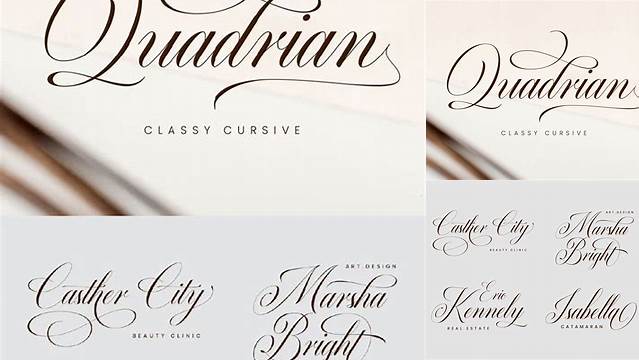
Elegant Cursive Fonts: Free Downloads For Stunning Designs
Hey guys! Looking to add a touch of class and sophistication to your projects? Elegant cursive fonts are the way to go. Whether you're designing wedding invitations, crafting logos, or just want to make your text look fancy, finding the right font is crucial. Let’s dive into the world of free elegant cursive fonts and how you can use them to create stunning designs. We'll cover everything from where to find them to how to use them effectively. Ready? Let's get started!
1. The Allure of Elegant Cursive Fonts
Elegant cursive fonts bring a certain je ne sais quoi to any design. The flowing lines and graceful curves evoke a sense of sophistication and artistry. These fonts mimic the look of handwriting, adding a personal and intimate touch that can't be achieved with standard typefaces. Think about the last time you saw a beautifully handwritten letter – the feeling of care and attention is palpable. That's the power of cursive! Using these fonts can elevate your work, making it stand out and capturing attention. You can use it in different projects such as wedding invitations, branding materials or even social media graphics.
But why are these fonts so appealing? It's partly because they remind us of a time when handwriting was a primary form of communication. There's a nostalgic element that can resonate with people, especially when used in contexts that call for a sense of tradition or history. Moreover, the visual complexity of cursive fonts can add depth and interest to designs that might otherwise seem plain. The key is to use them judiciously. Overusing an elegant cursive font can make your design look cluttered or difficult to read, so it's important to strike the right balance.
3. Distinguishing Features of Elegant Cursive Fonts
What makes an elegant cursive font truly elegant? It's all in the details, guys. These fonts often feature:
- Flourishes: Decorative strokes that extend from the letters, adding a touch of flair.
- Varying Stroke Widths: The thickness of the lines changes, creating a more dynamic and natural look.
- Swashes: Extended strokes that add a dramatic touch to certain letters, especially at the beginning or end of words.
- Ligatures: Special characters that combine two or more letters into a single, more elegant form.
- Smooth Transitions: The letters flow seamlessly into one another, mimicking the rhythm of handwriting.
These elements combine to create a font that feels both sophisticated and approachable. However, it's essential to consider how these features will work in different contexts. A font with too many flourishes might look cluttered in a small size, while one with very thin strokes might not be legible on certain backgrounds. Choosing the right font involves understanding its unique characteristics and how they will impact your design.
4. Using Elegant Cursive Fonts in Wedding Invitations
Elegant cursive fonts are a classic choice for wedding invitations, and for good reason. They evoke romance, tradition, and a sense of occasion. When using cursive fonts for wedding invitations, consider the following:
- Legibility: While elegance is important, make sure the font is still easy to read. Your guests need to know the date, time, and location!
- Contrast: Use a font color that contrasts well with the background. White or light-colored fonts on a dark background can look stunning.
- Hierarchy: Use different fonts for different elements. A cursive font for the names of the couple and a simpler font for the details can create a balanced look.
- Spacing: Pay attention to the spacing between letters and lines. Too little spacing can make the text look cramped, while too much can make it feel disjointed.
- Wedding Invitations: A classic source of inspiration, offering endless elegant designs.
- Luxury Branding: High-end brands often use cursive fonts to convey sophistication and exclusivity.
- Vintage Advertisements: Retro ads showcase creative ways to use cursive for nostalgic appeal.
- Handmade Crafts: Artisans often incorporate cursive fonts into their branding and product design.
By observing how others use cursive fonts effectively, you can gather ideas and develop your unique style.